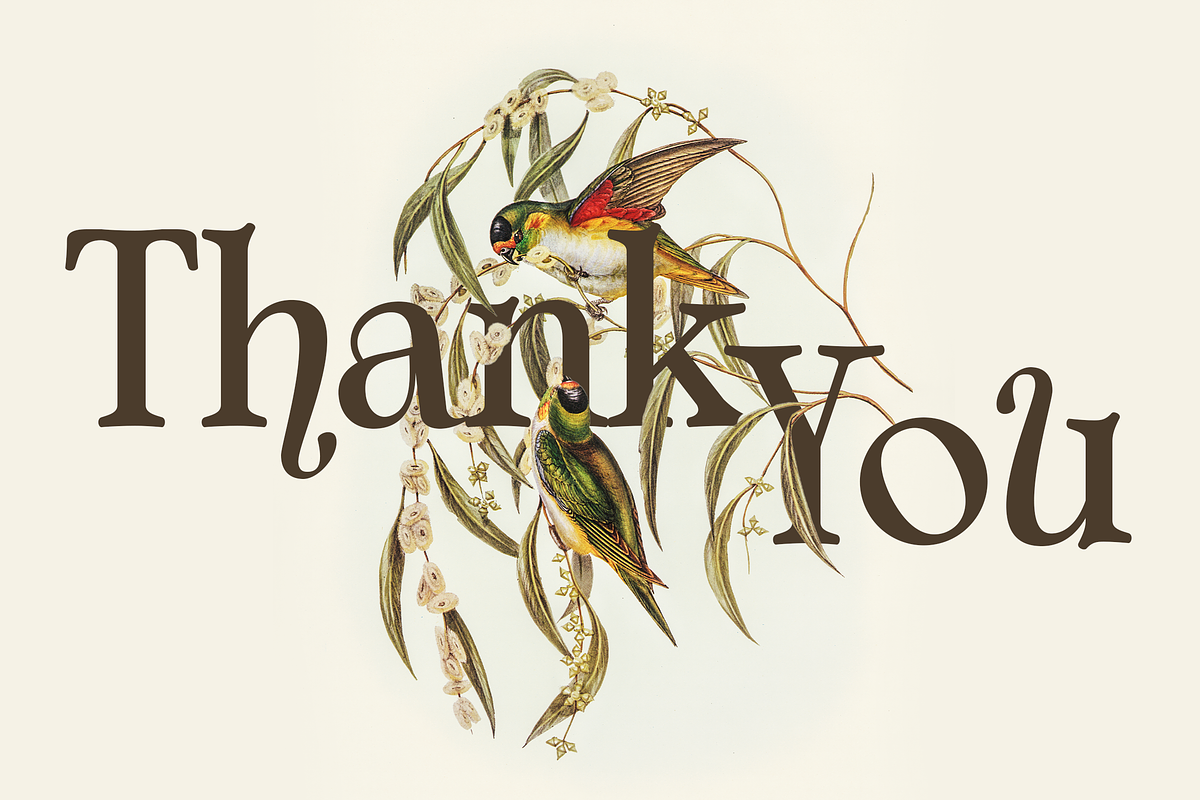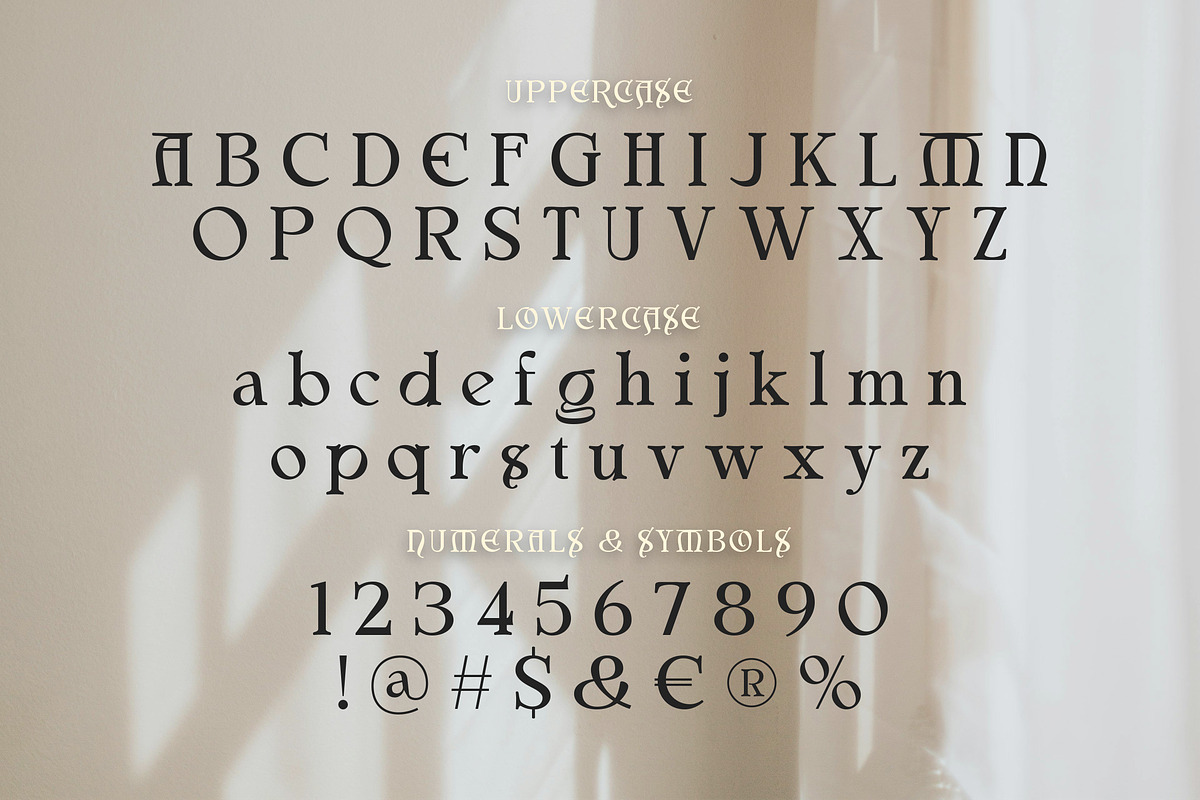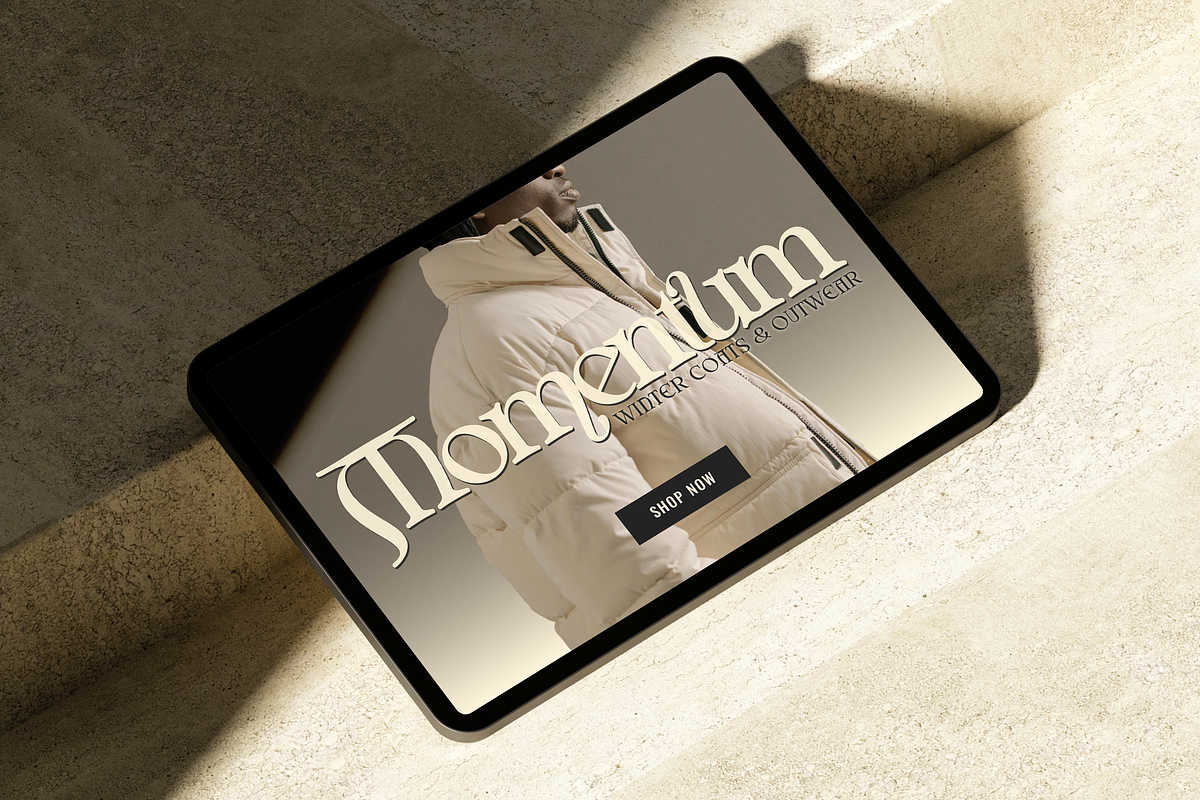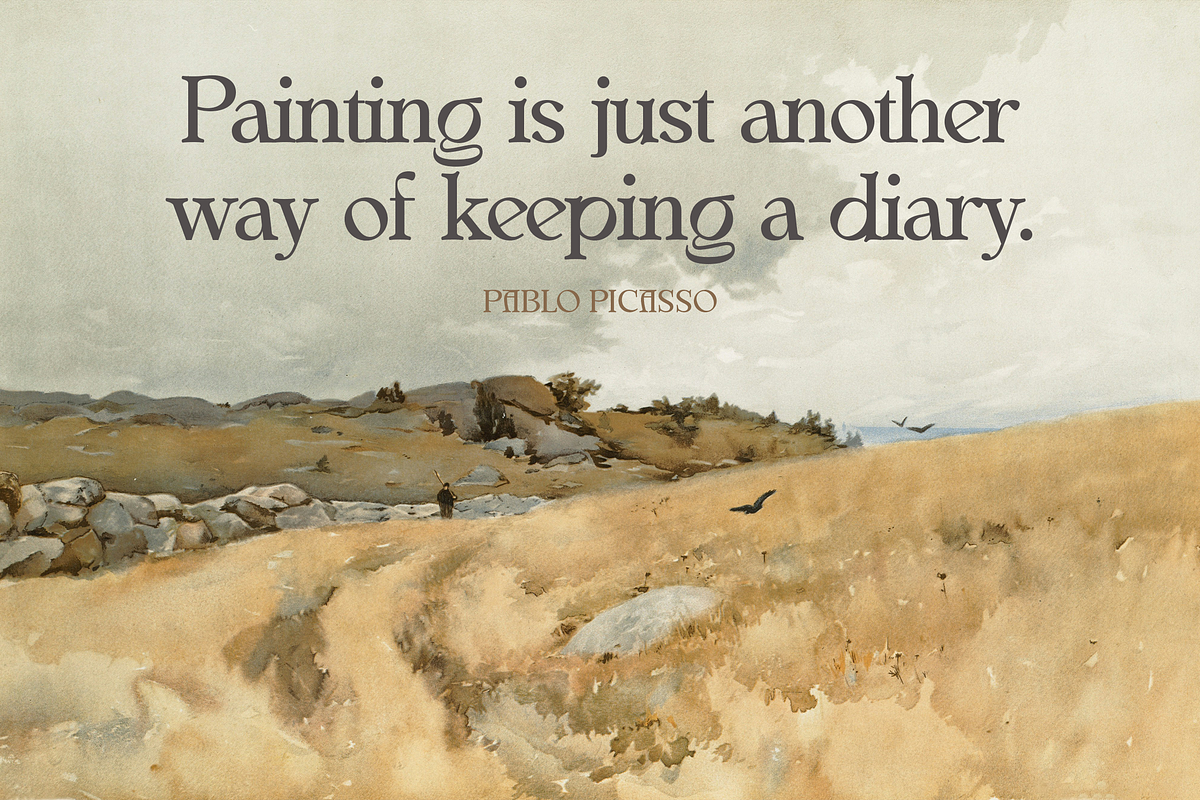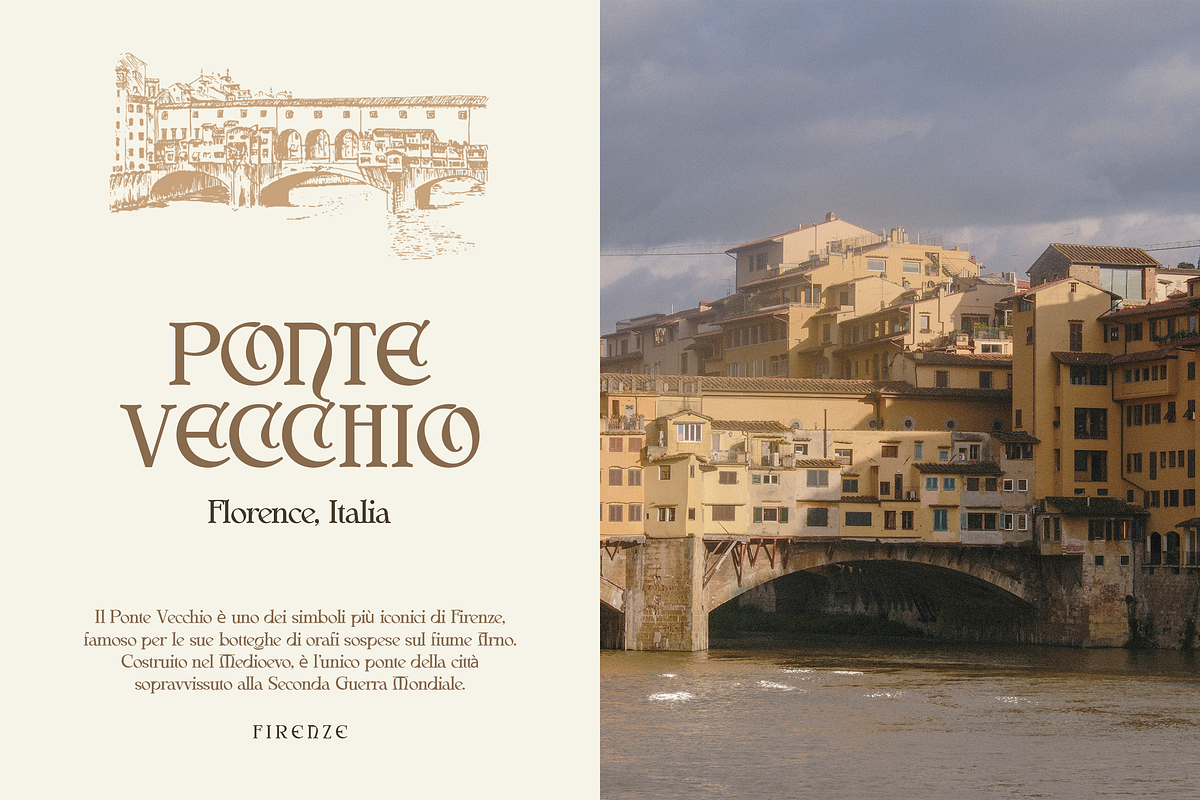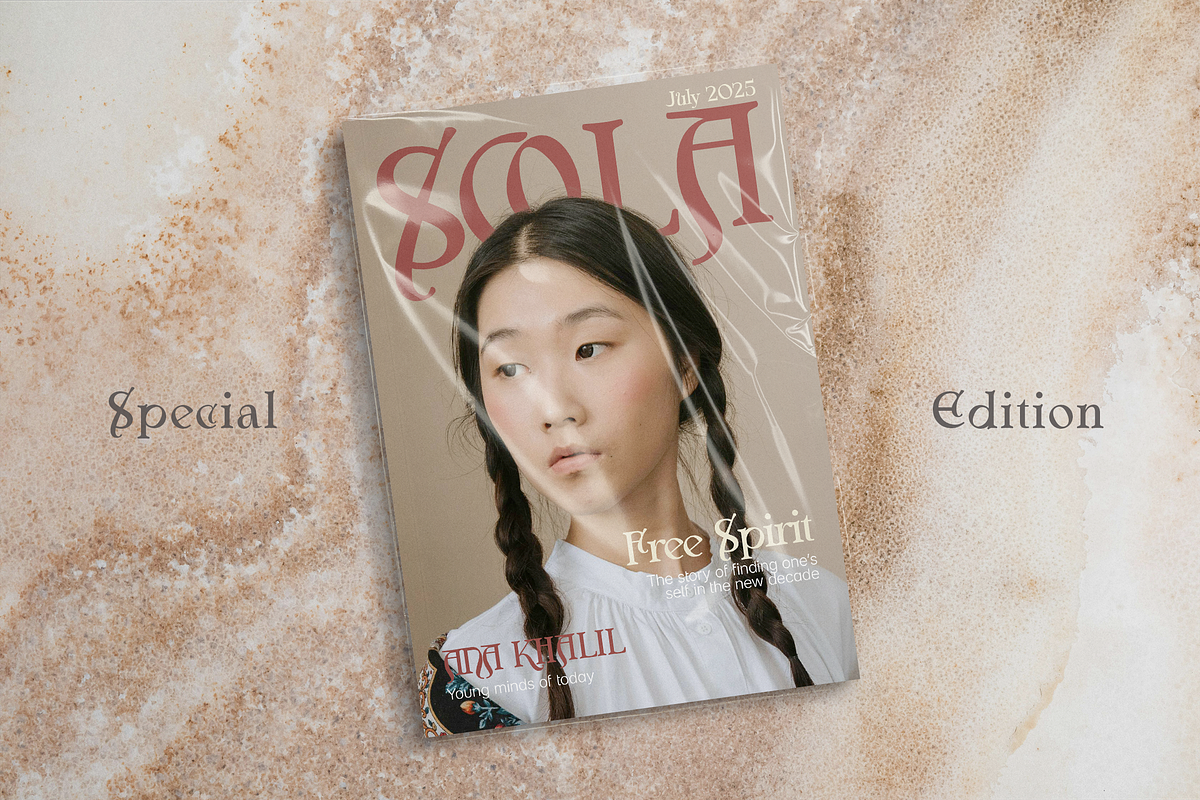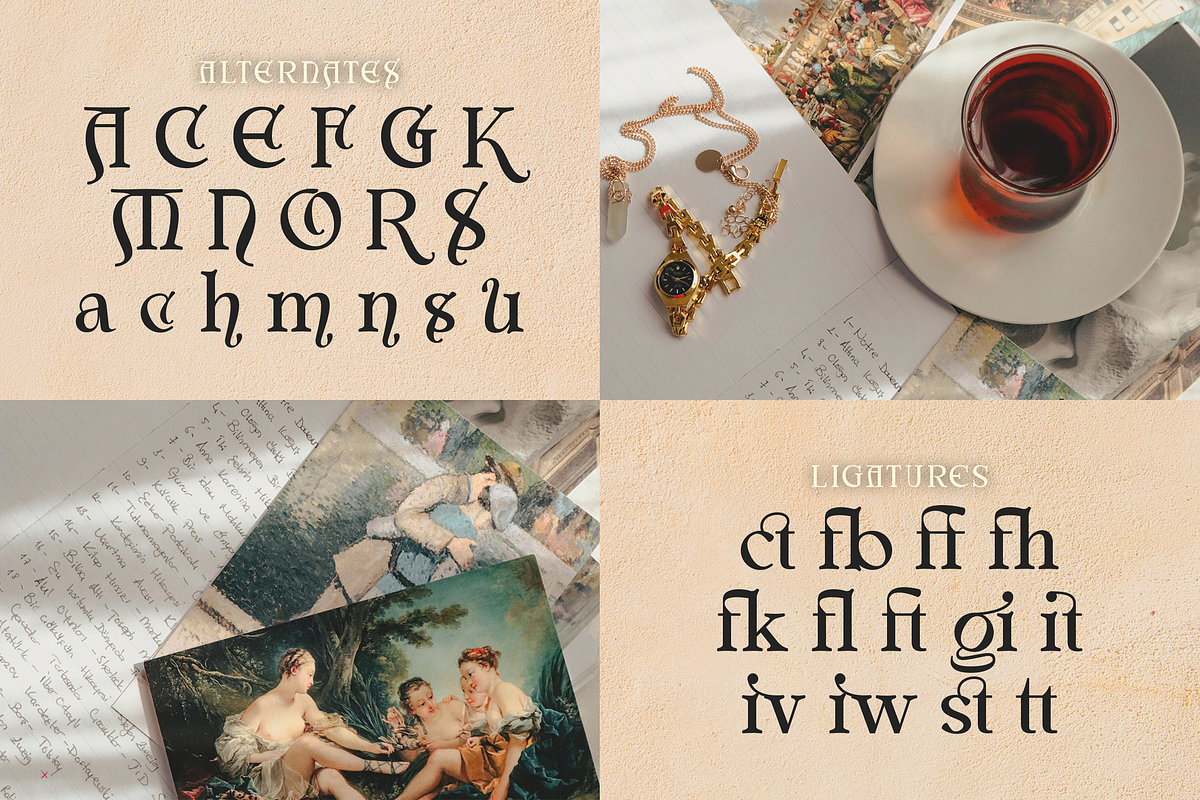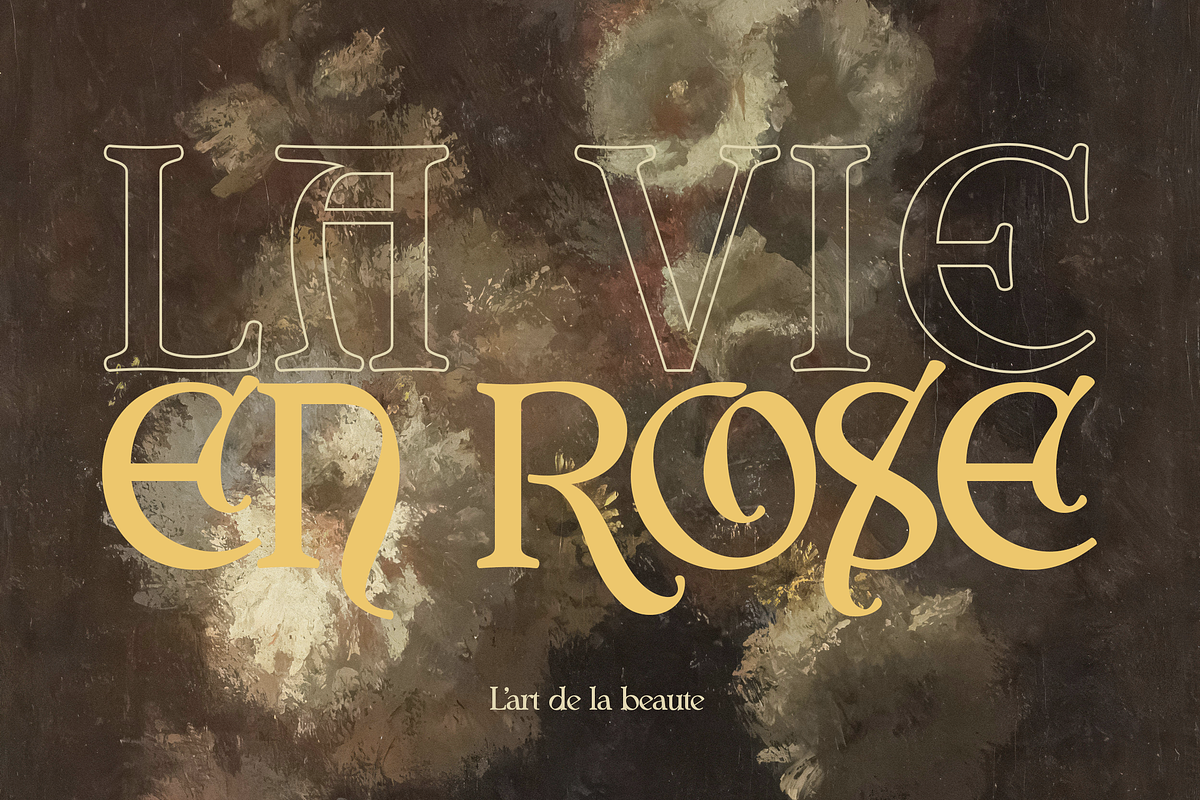
Aurelyne Stylish Elegant Serif Font
Aurelyne is a graceful and modern serif with effortless charm that adds sophistication to any design. Perfect for logos, invitations, editorials and social media branding. Its refined curves and timeless beauty create an elegant and polished look that stands out in every project, making your work feel luxurious and unforgettable.
- Multilingual & Ligature Support